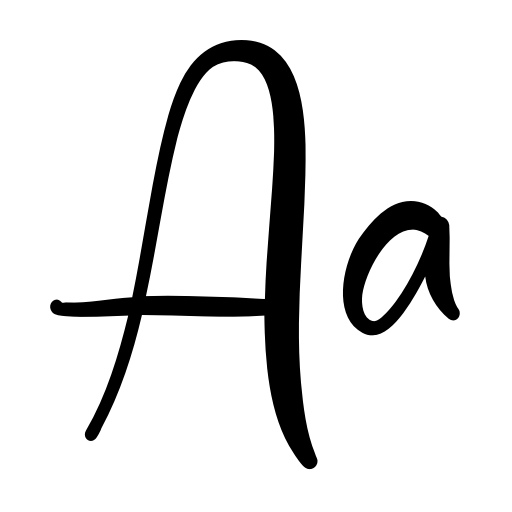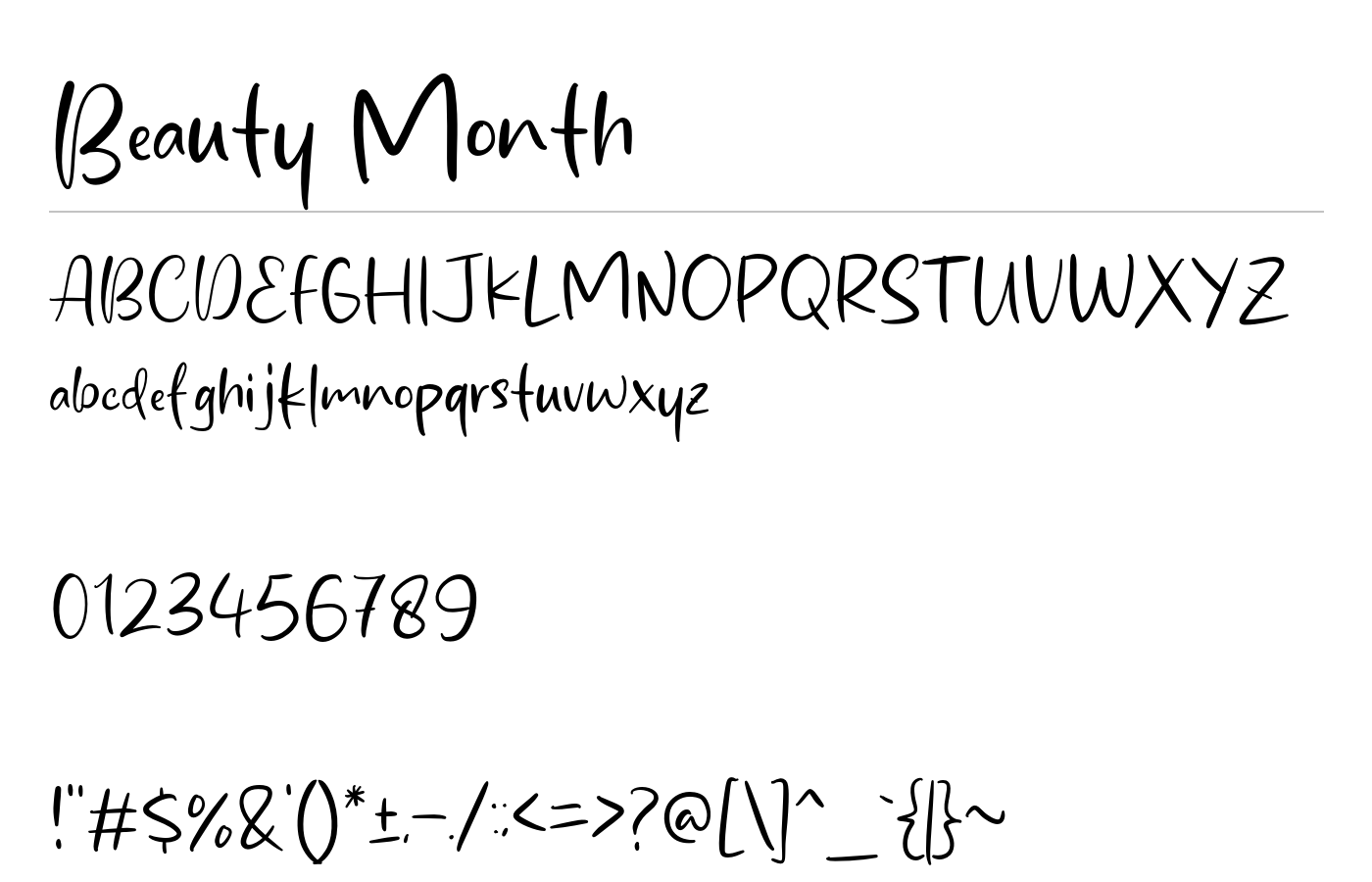
Beauty Month is a playful and elegant handwritten font with a casual yet refined look. Its slender strokes, varied letter heights, and natural, slightly quirky shapes create a friendly and approachable feel, making it perfect for lifestyle branding, invitations, and creative headlines that want to convey warmth and personality. This font works beautifully in projects that need a personal touch without sacrificing readability or style.
Beauty Month Font
About Beauty Month Font
| Font family | Beauty Month Font |